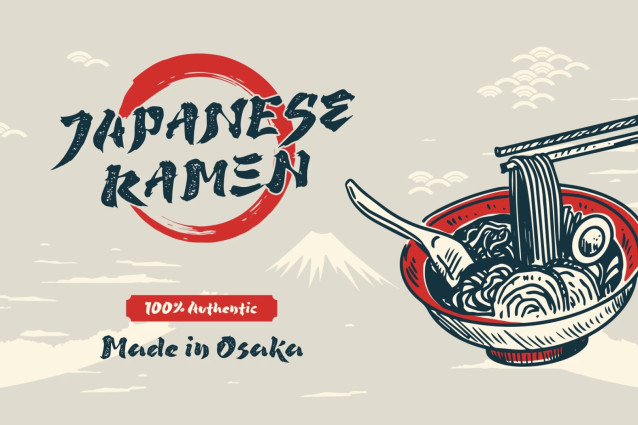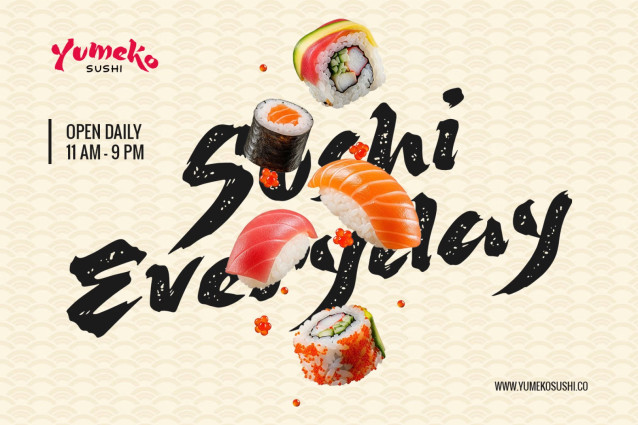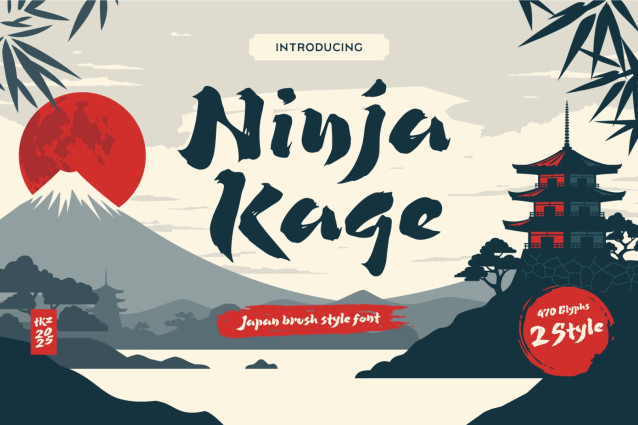
Ninja Kage Font
Ninja Kage Font is a cool, Japan-inspired brush display font. Add it confidently to your creative projects and you will be astounded by the generated outcome!